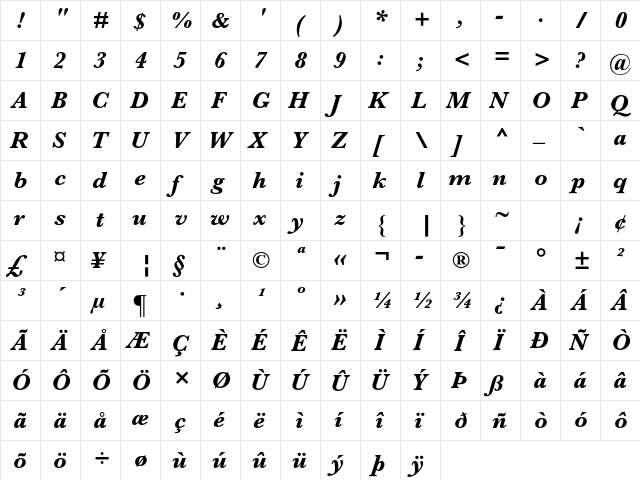
Baskerville MT Std Bold Italic Font Preview
Design Context for Baskerville MT Std Typeface
Baskerville MT Std takes a measured approach to typography — its balanced proportions and neutral character make it a reliable workhorse for both digital and print work. The slanted form adds forward momentum and visual energy. The heavy weight commands attention and anchors typographic hierarchies.
Pro Tip: Try Baskerville MT Std for annotation and caption copy alongside an upright companion — the contrast in angle creates a dynamic but ordered typographic system.